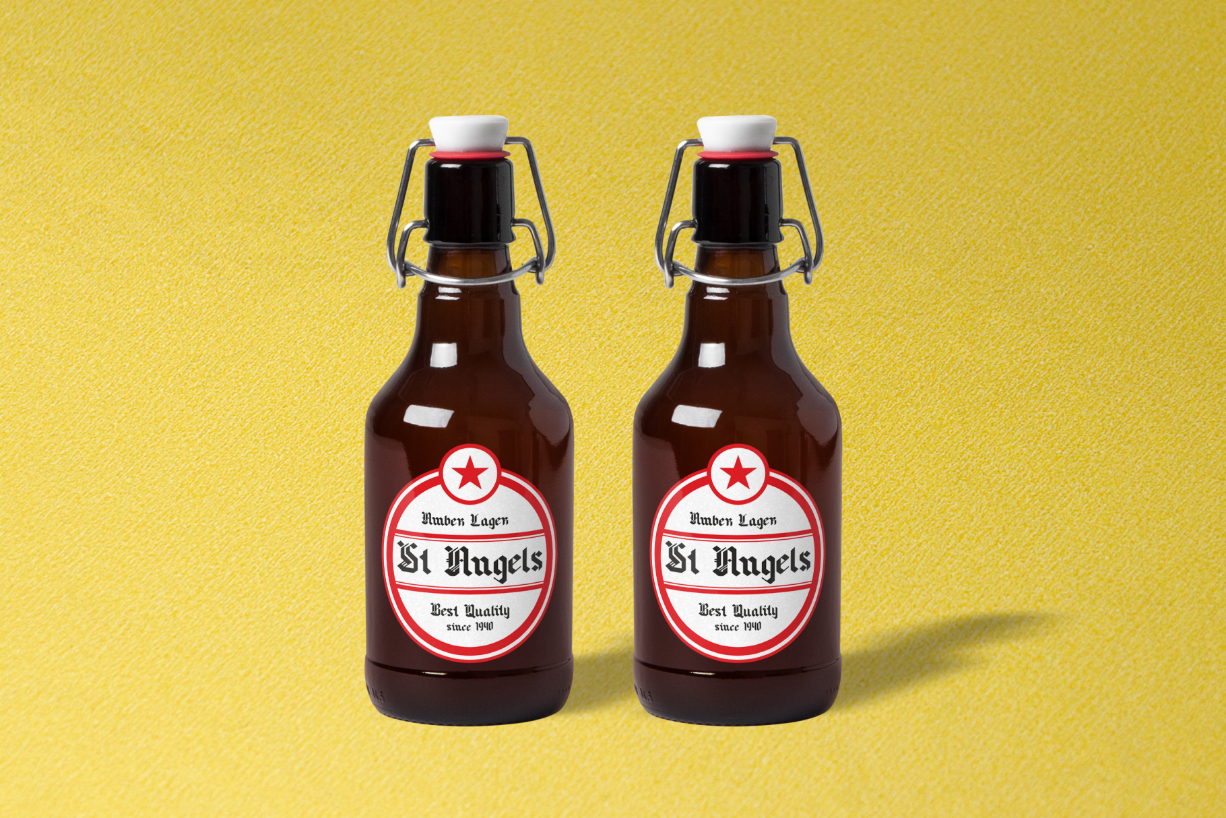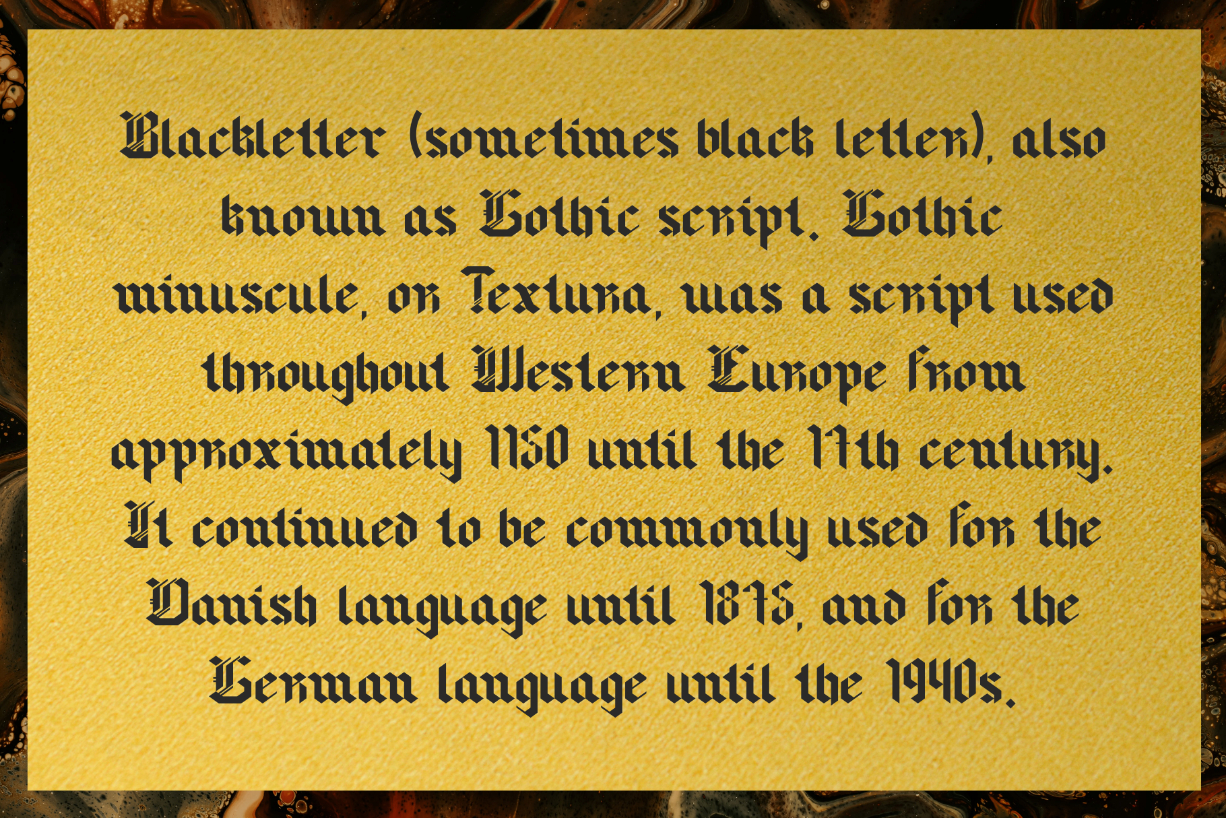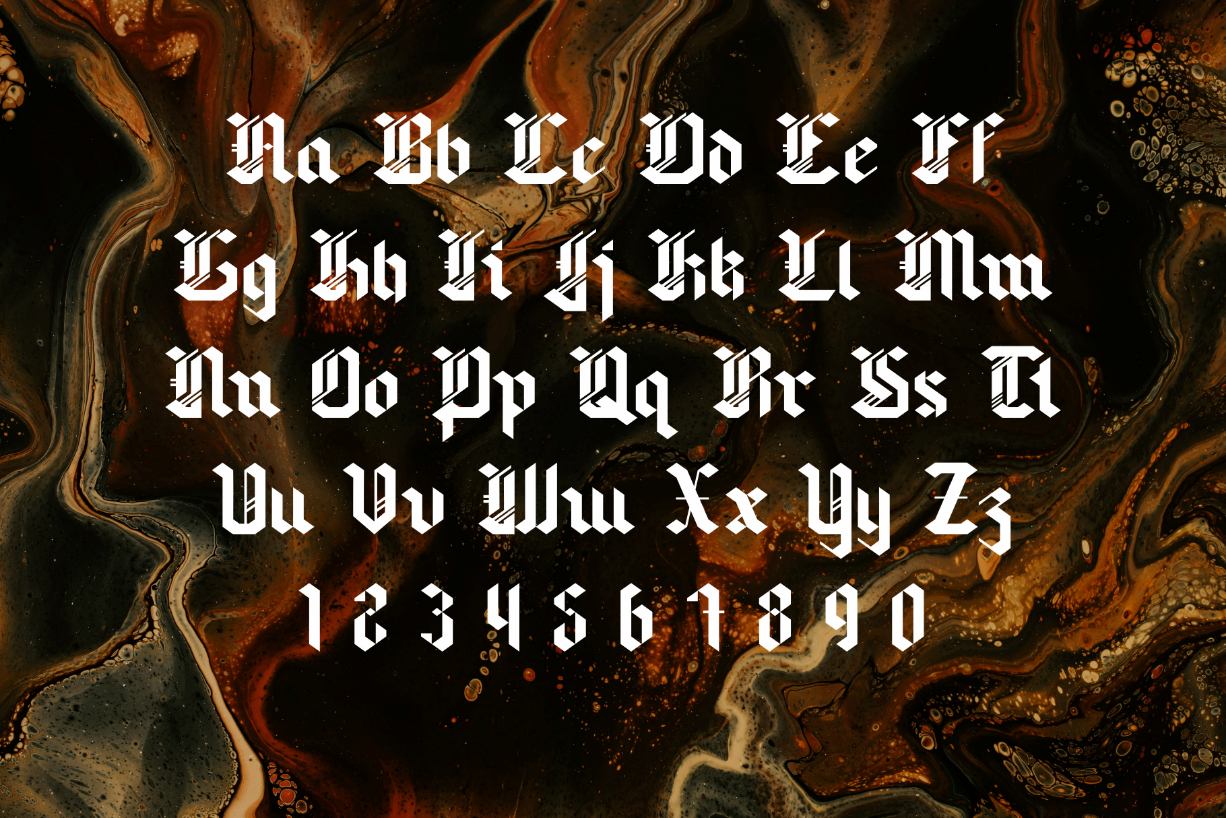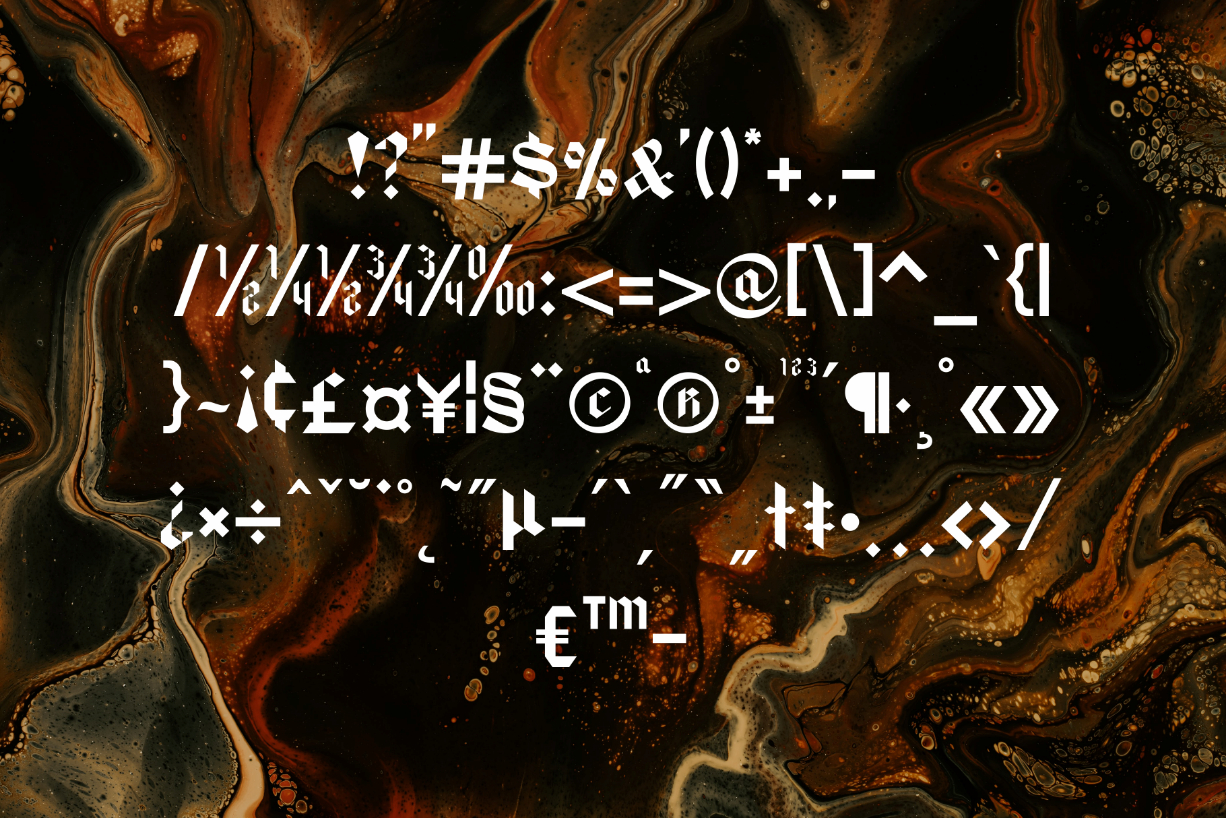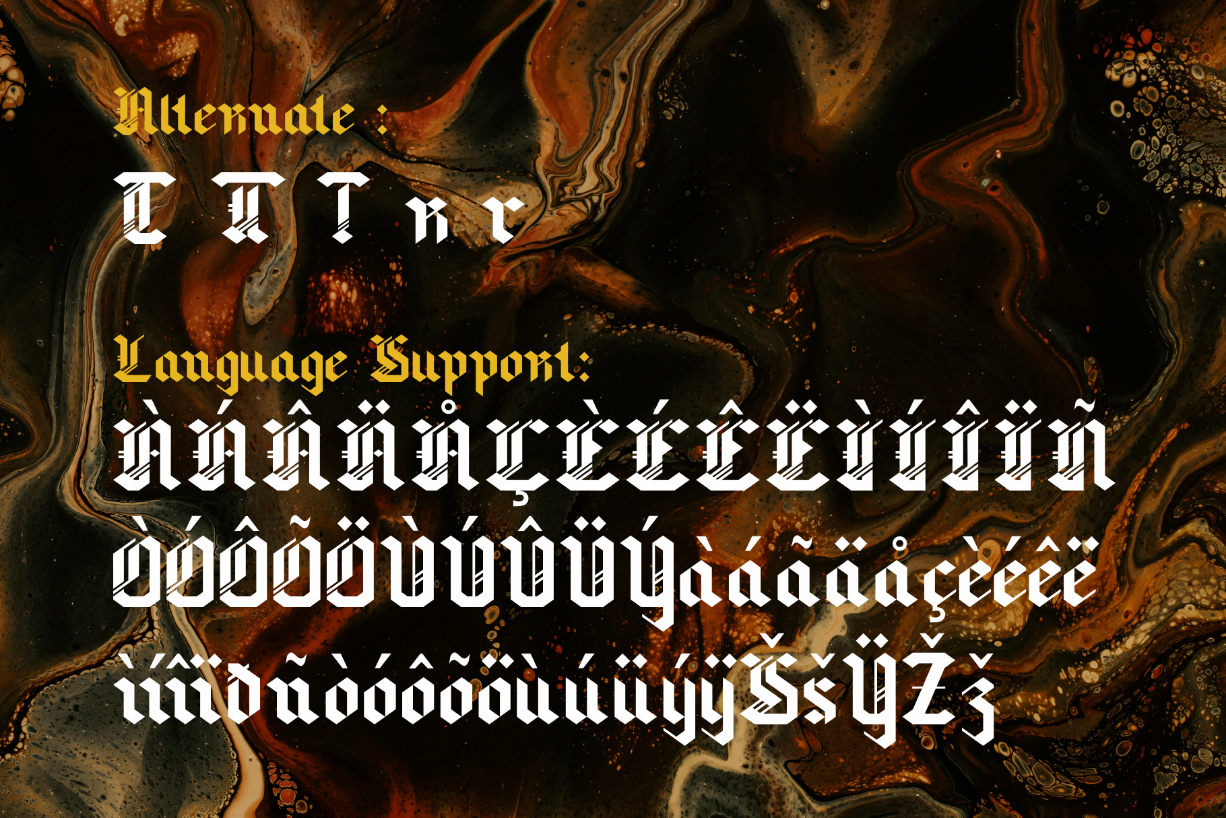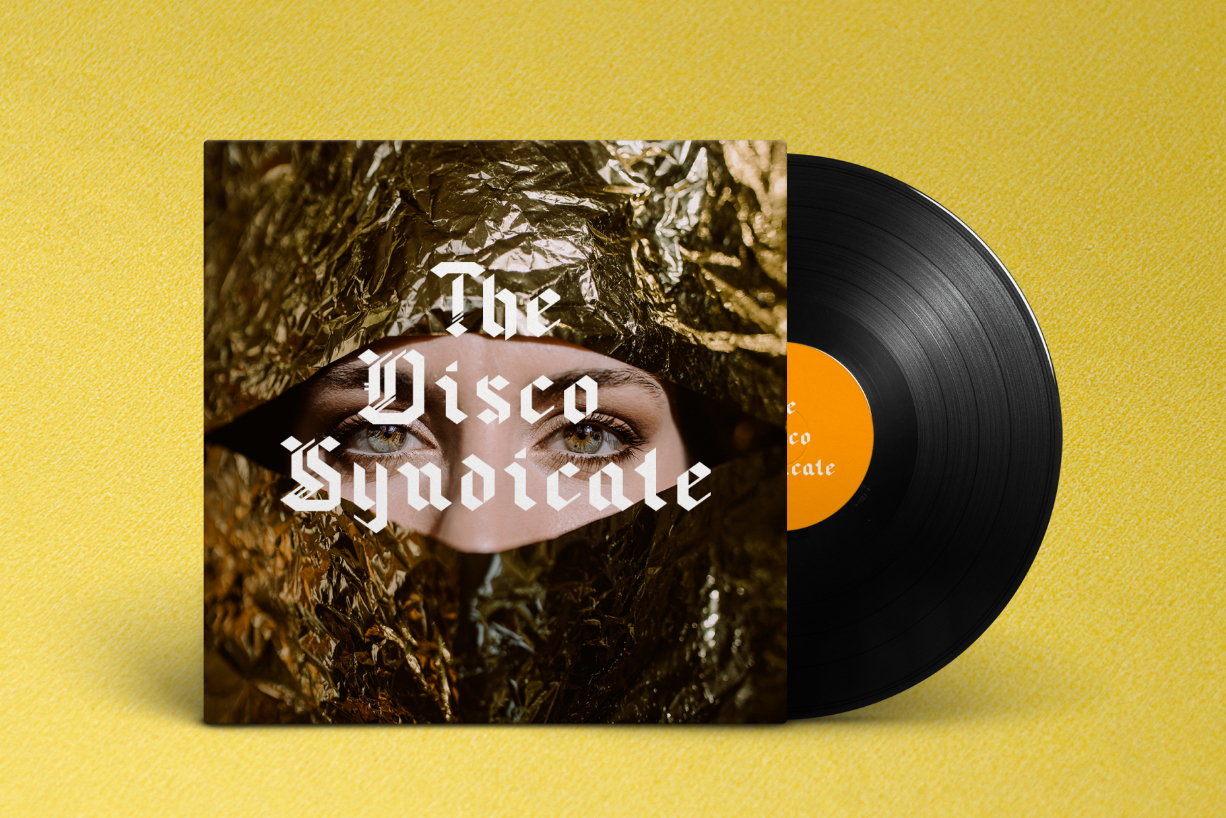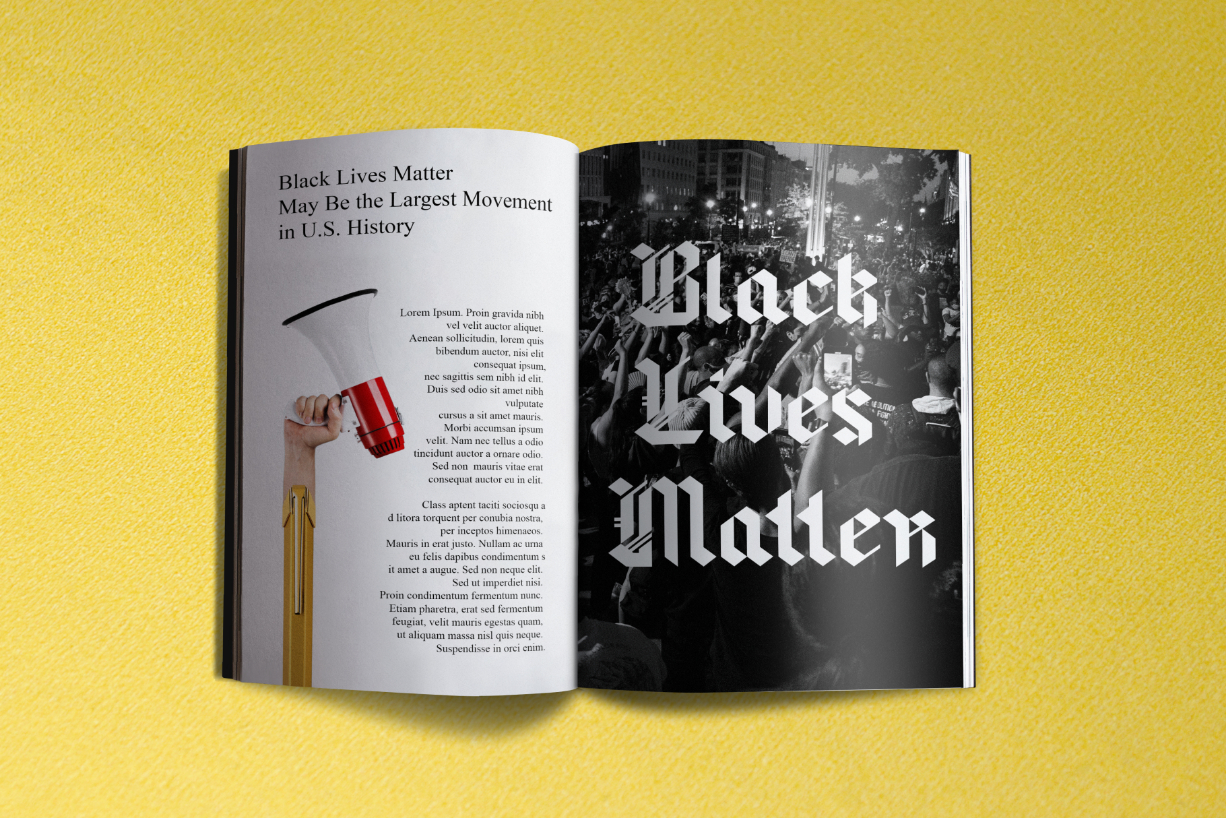
Triggers Font
About Triggers Font
Triggers is a cool, assertive and bold blackletter font. This font is imposing and features uniquely shaped letters, and as a result, it will easily match a wide range of creations that require a distinct touch.